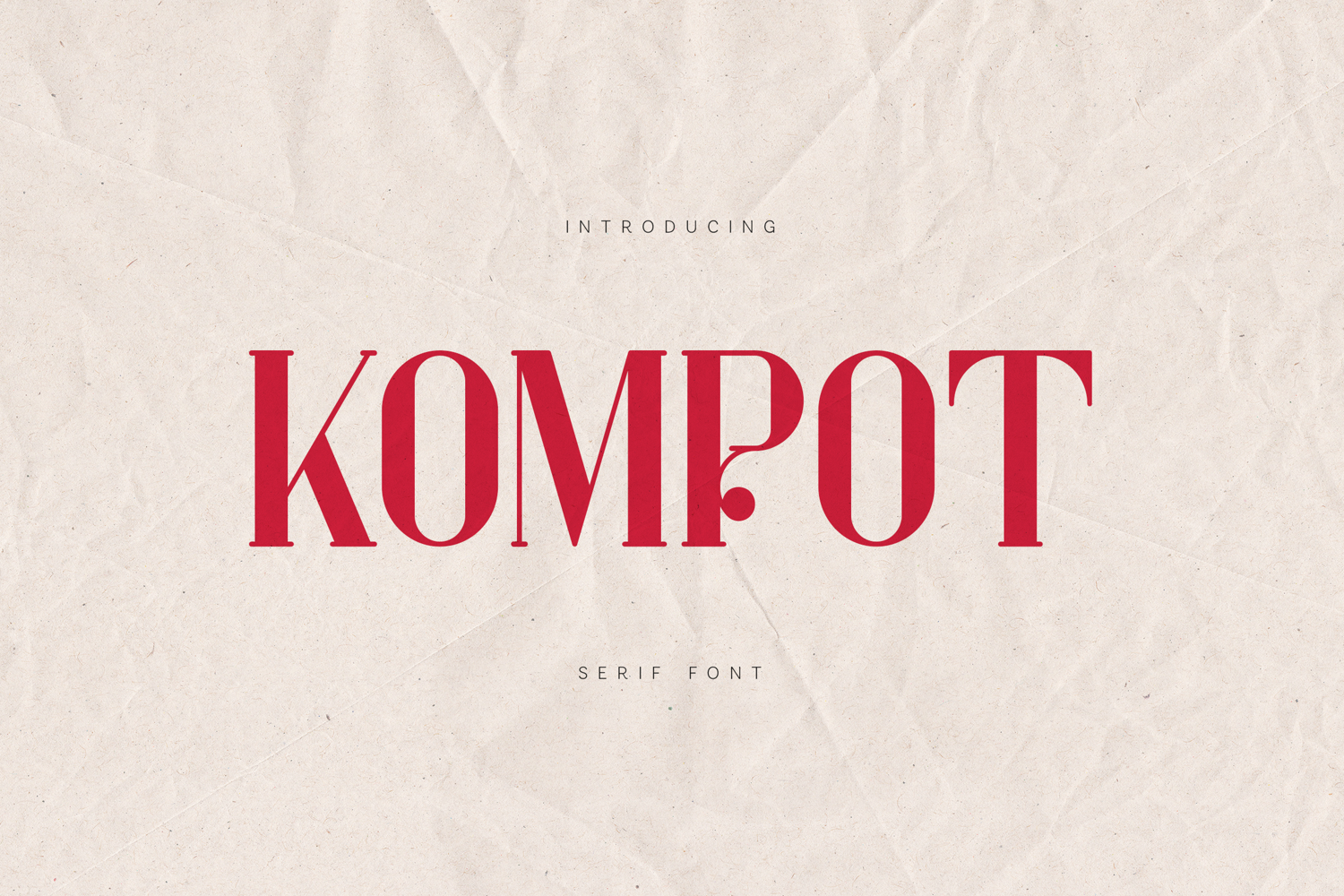
Kompot Elegant Modern Serif Font | Luxury
Kompot is a refined modern serif typeface designed for sophisticated branding, editorial layouts, and high-end visual identities.
Blending sharp serifs with graceful curves and subtle contemporary contrast, Compote delivers a luxurious yet confident presence across print and digital applications.
• Fashion branding
• Editorial magazines
• Luxury logos
• Beauty packaging
• Wedding invitations
• Social media graphics
• High-end typography projects
Its balanced proportions and elegant detailing make it ideal for headlines, display compositions, and statement typography.
Kompot supports multilingual characters and includes uppercase, lowercase, numerals, punctuation, and special symbols — making it a versatile choice for global design work.